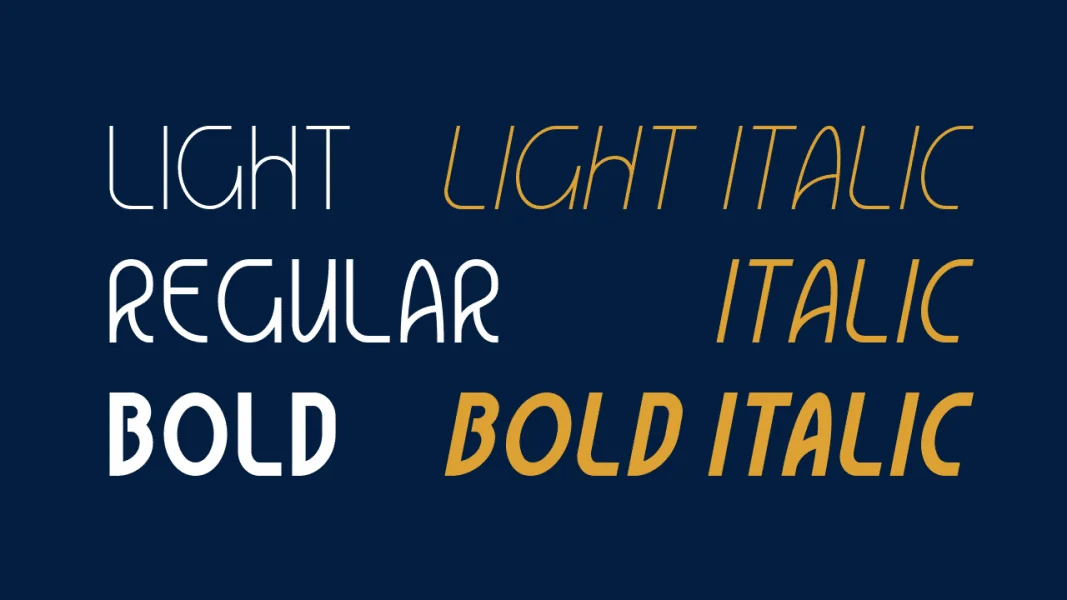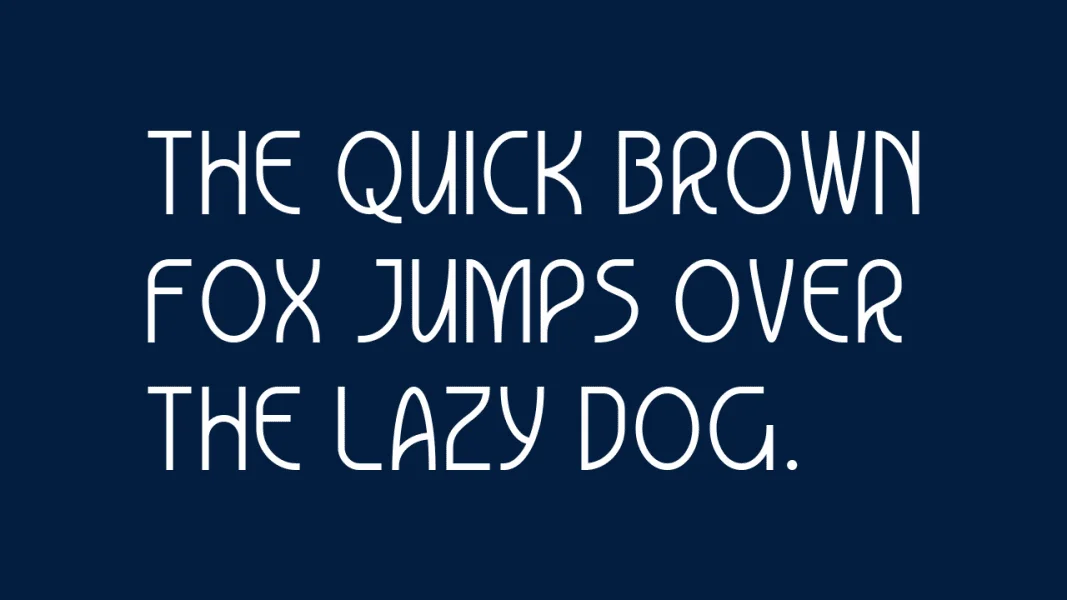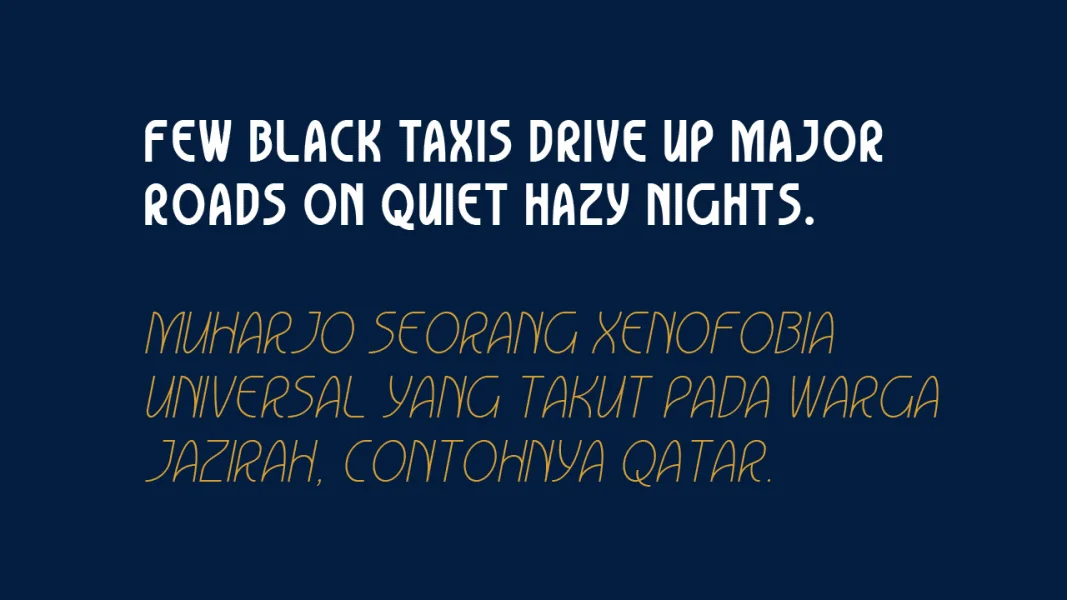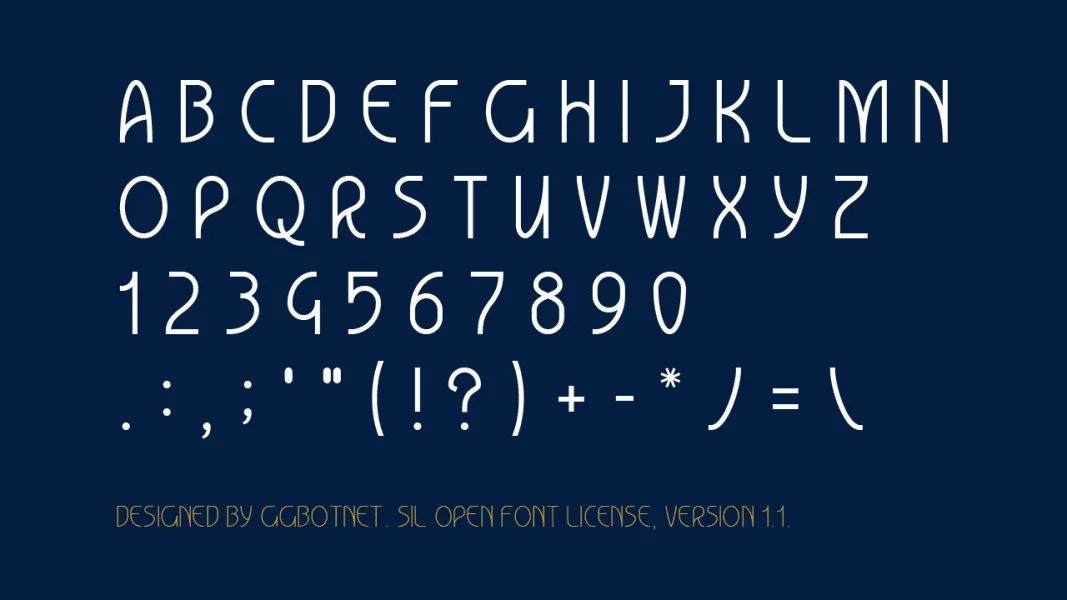
Lumierepolis is an all-caps display typeface with a slender, Art Deco-leaning character and a polished retro tone. Its tall letterforms, rounded curves, low-contrast strokes, and clipped geometric details give it a decorative rhythm without becoming overly ornate.
The family includes light, regular, bold, and italic styles, making it useful for elegant headlines, posters, branding, album covers, invitations, packaging, and social media graphics where a refined vintage mood is needed.